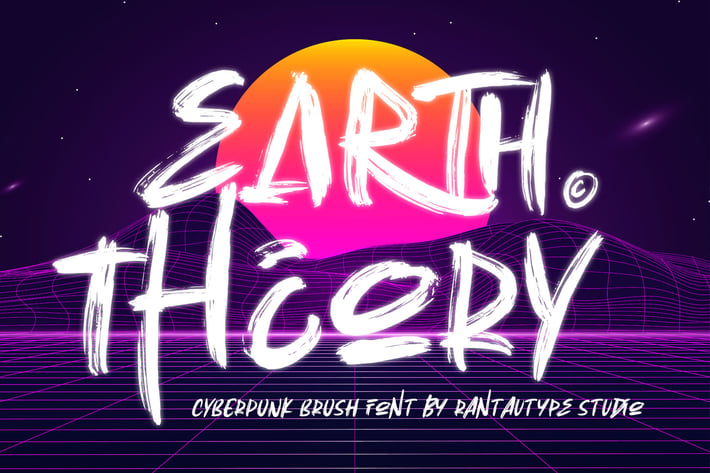
Earth Theory Street Brush Font
Earth Theory is street brush font with perfect detail stroke. Earth theory come with stylish style to make design project more attractive and stand out.
Earth Theory is a perfect choice for any creative endeavor, chic, lifestyle design such as logos, advertisements, watermark on photography, stationery, branding project, display and magazine, invitation, corporate brand, product design, label, business project and many other project need brush taste.
Ligature and alternate